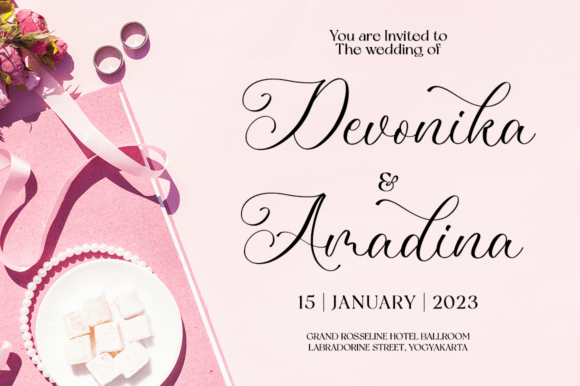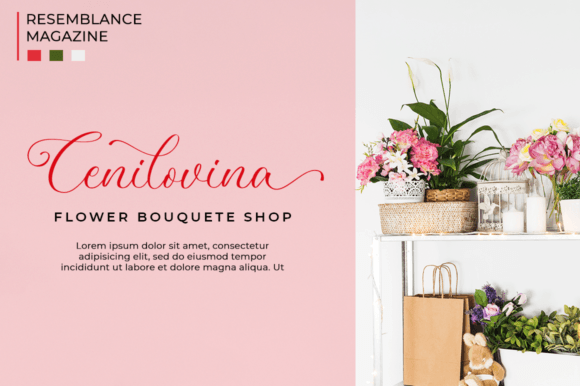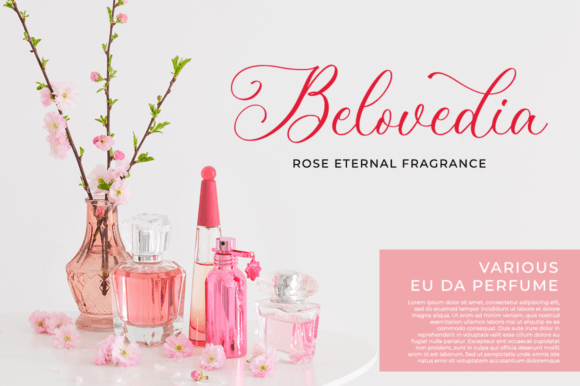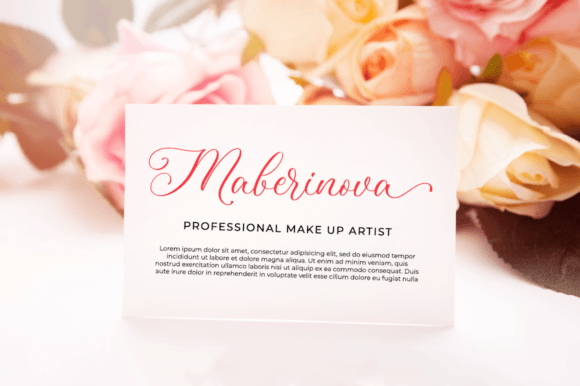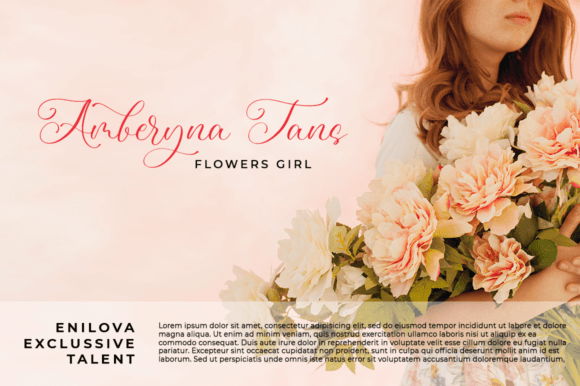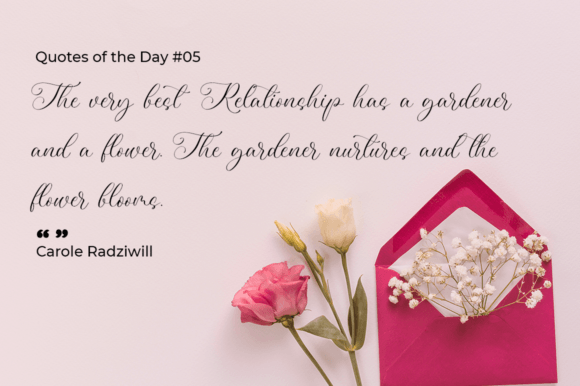
Introduction to Mayliana Font
As a designer, you know that finding the perfect font can be a game-changer for your creative project. It’s that moment when everything comes together – the colors, the layout, and the typography – that makes your design truly shine. And, let’s be honest, it’s not always easy to find that elusive perfect font.
But, what if I told you that there’s a new design resource on the block that’s sure to make your designs stand out? Say hello to the Mayliana Font, a stunning script font that exudes elegance and sophistication. With its delicate lines and high-quality design, this font is perfect for adding a touch of class to your projects.
Key Features of Mayliana Font
- Transparent background, ideal for use on various backgrounds and designs
- Includes a wide range of characters, including uppercase and lowercase letters, numbers, and punctuation
- Unique, stylish design that can add a touch of elegance to any project or document
Honest Review: Mayliana Font
I recently had the chance to work with the Mayliana Font, and I must say it’s been a game-changer for my design projects. As a designer, I’m always on the lookout for high-quality design resources that can elevate my creative work.
One of the standout features of the Mayliana Font is its versatility. It’s perfect for a wide range of creative projects, from logos and branding to digital products and print materials.
- ✨ High-quality design: The font is incredibly detailed and has a professional finish.
- ✨ Versatility: As mentioned, the font is suitable for a variety of projects, making it a great addition to my design resource library.
- ⚠️ Limited font weights: While the font is available in a range of styles, I found that the font weights were a bit limited for some projects.
- ⚠️ Not ideal for complex text: Due to its delicate design, the font may not be the best choice for projects that require complex or dense text.
Overall, I’m really impressed with the Mayliana Font. While it may have some limitations, its high-quality design and versatility make it a valuable addition to any designer’s library.
The Mayliana Font is a versatile design resource perfect for creative projects requiring a high-quality font. This transparent background font is available for free download, making it an ideal choice for designers and artists.
To get the most out of the Mayliana Font, use it in conjunction with other design elements, such as graphics and images. You can also experiment with different font sizes and styles to create a unique look.
Common Use Cases for Mayliana Font
The Mayliana Font is commonly used in a variety of creative projects, including logos, business cards, and marketing materials. It is also a popular choice for personal projects, such as wedding invitations and social media graphics.